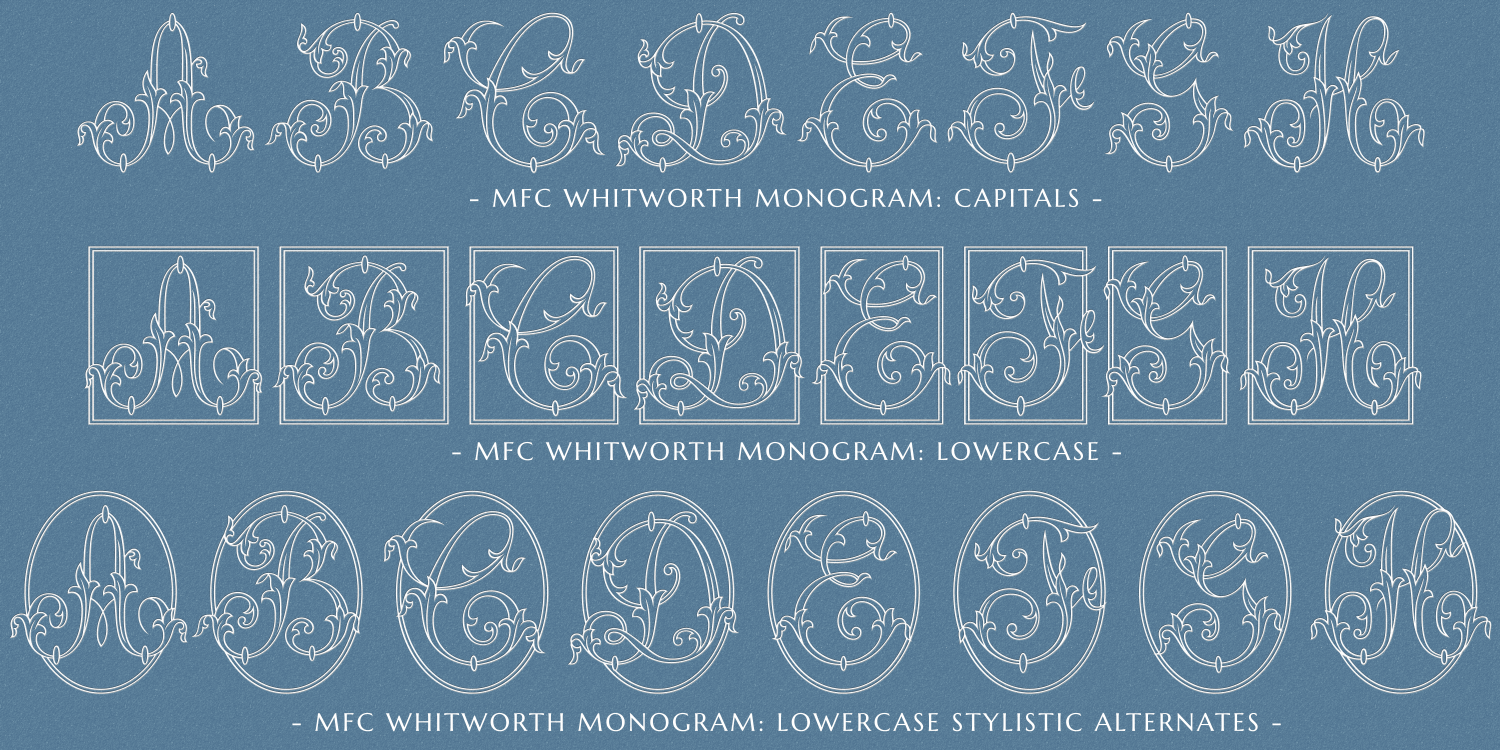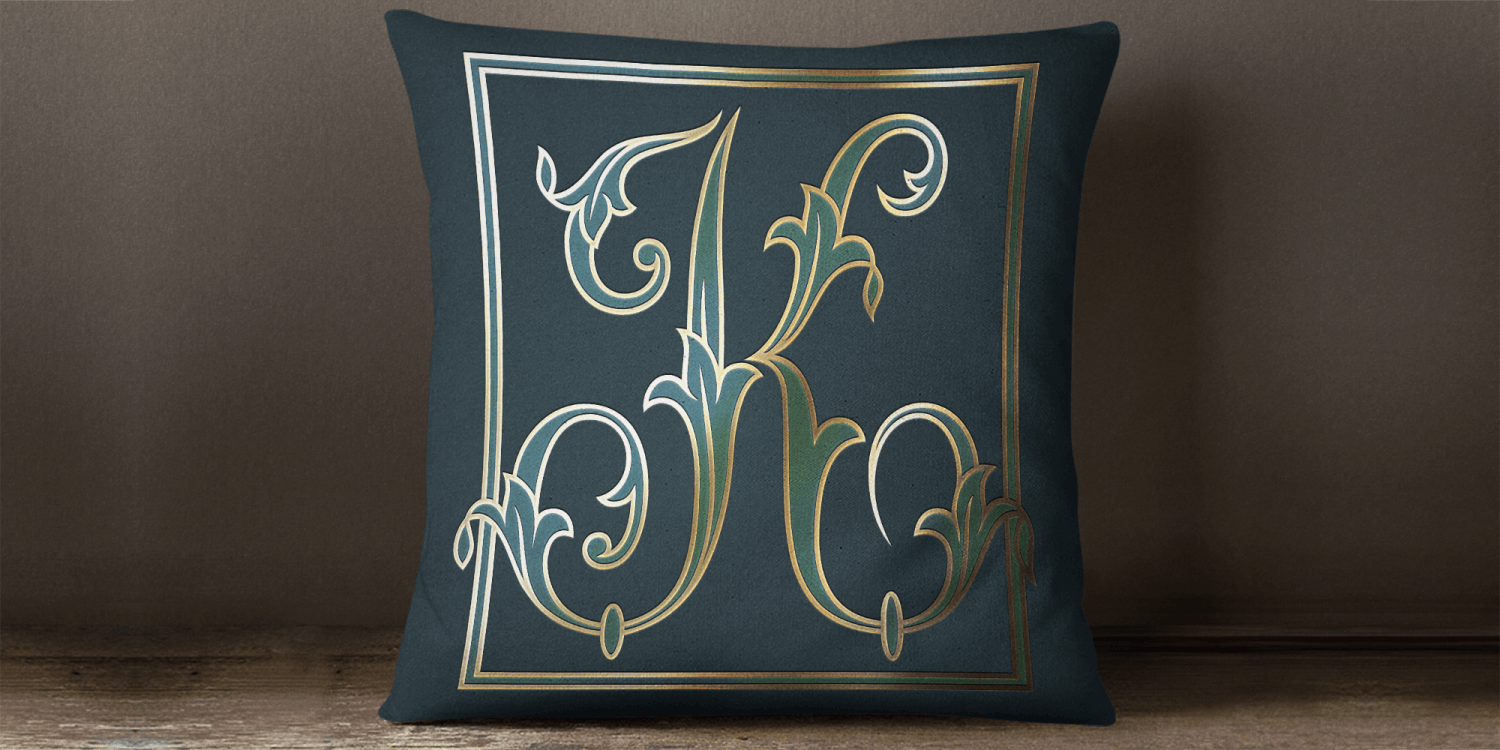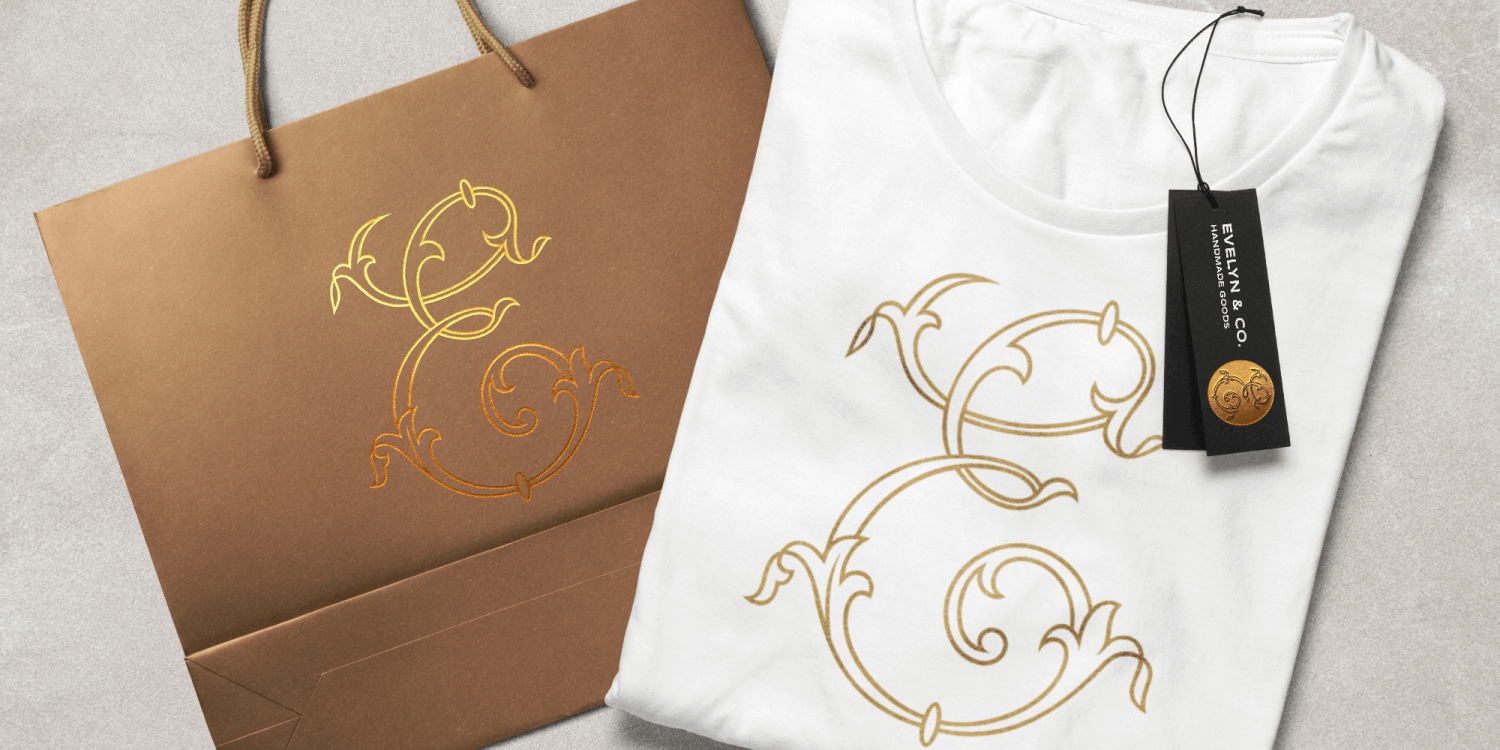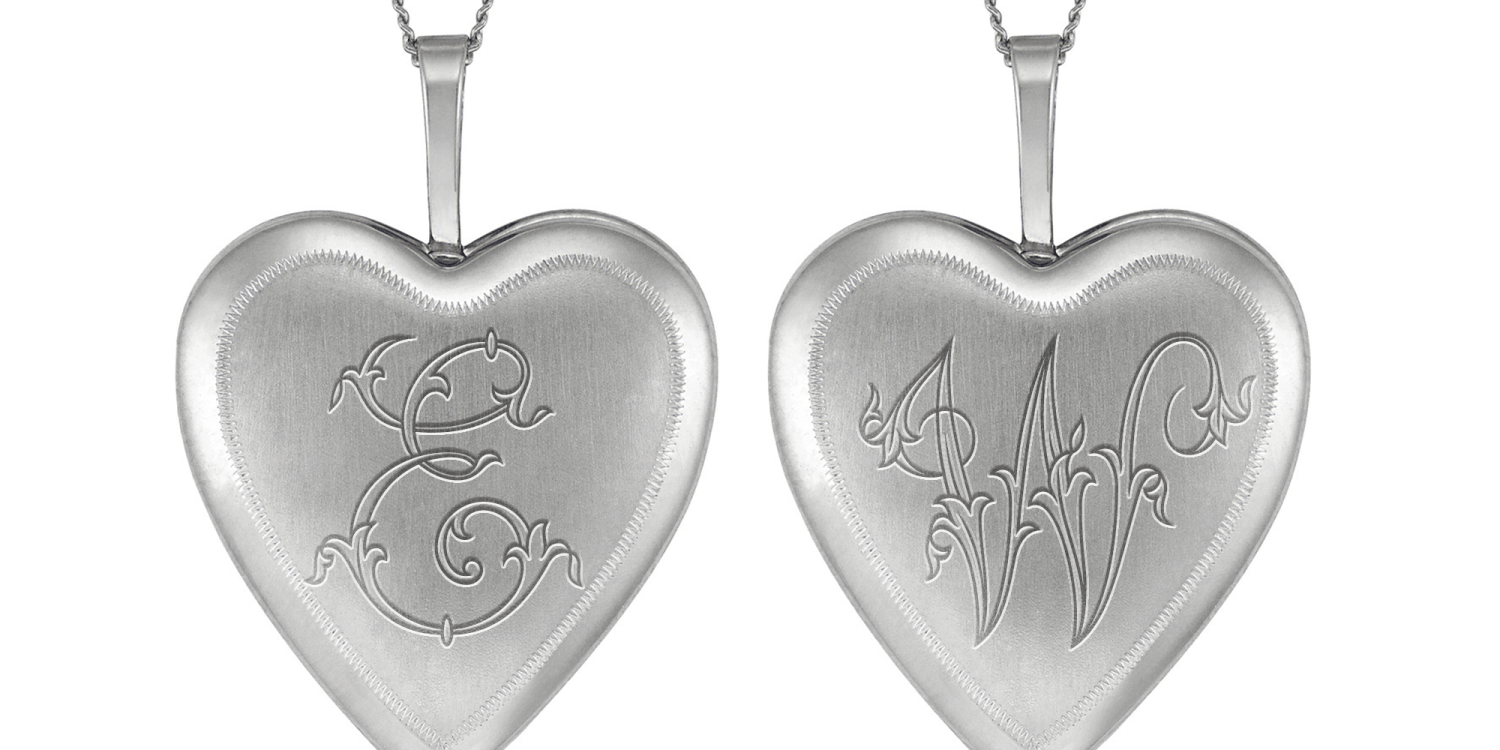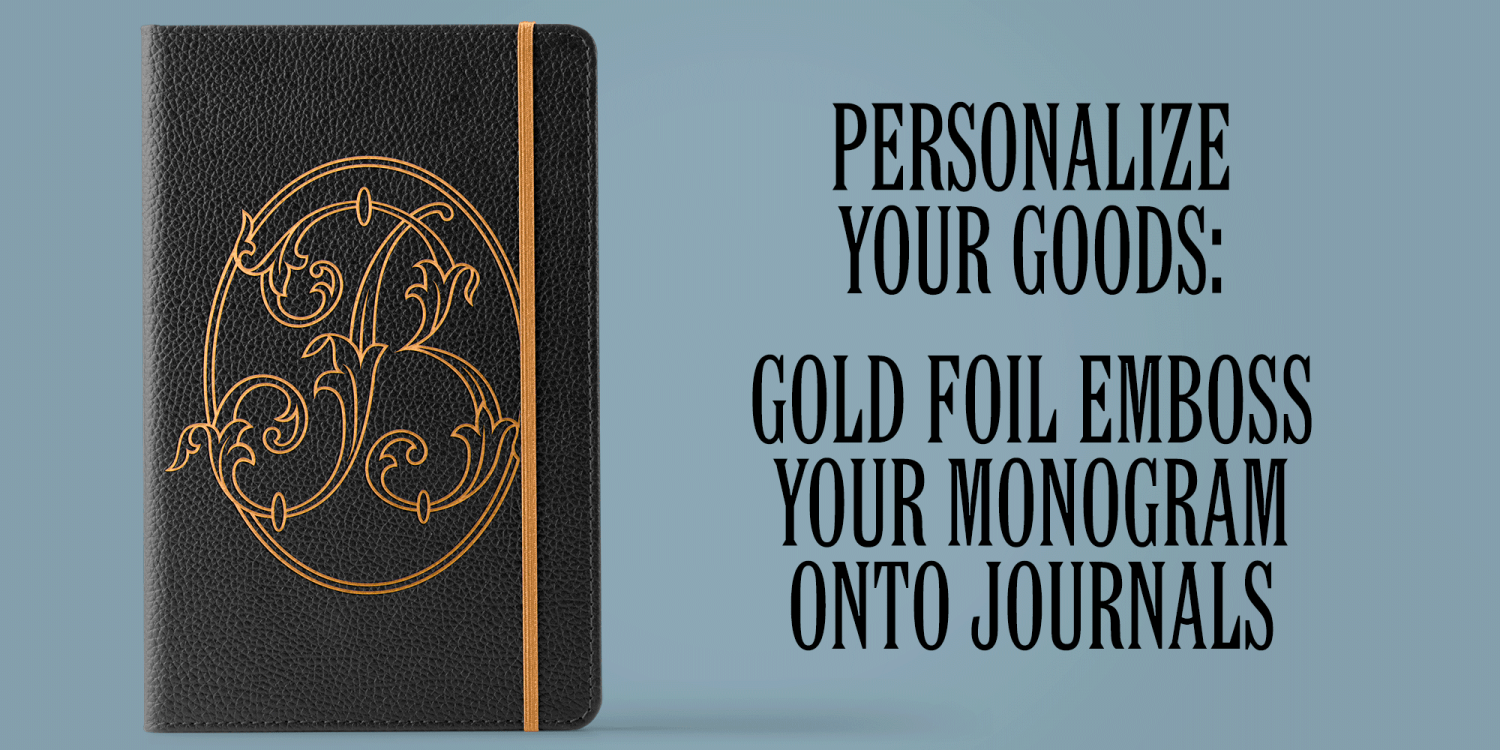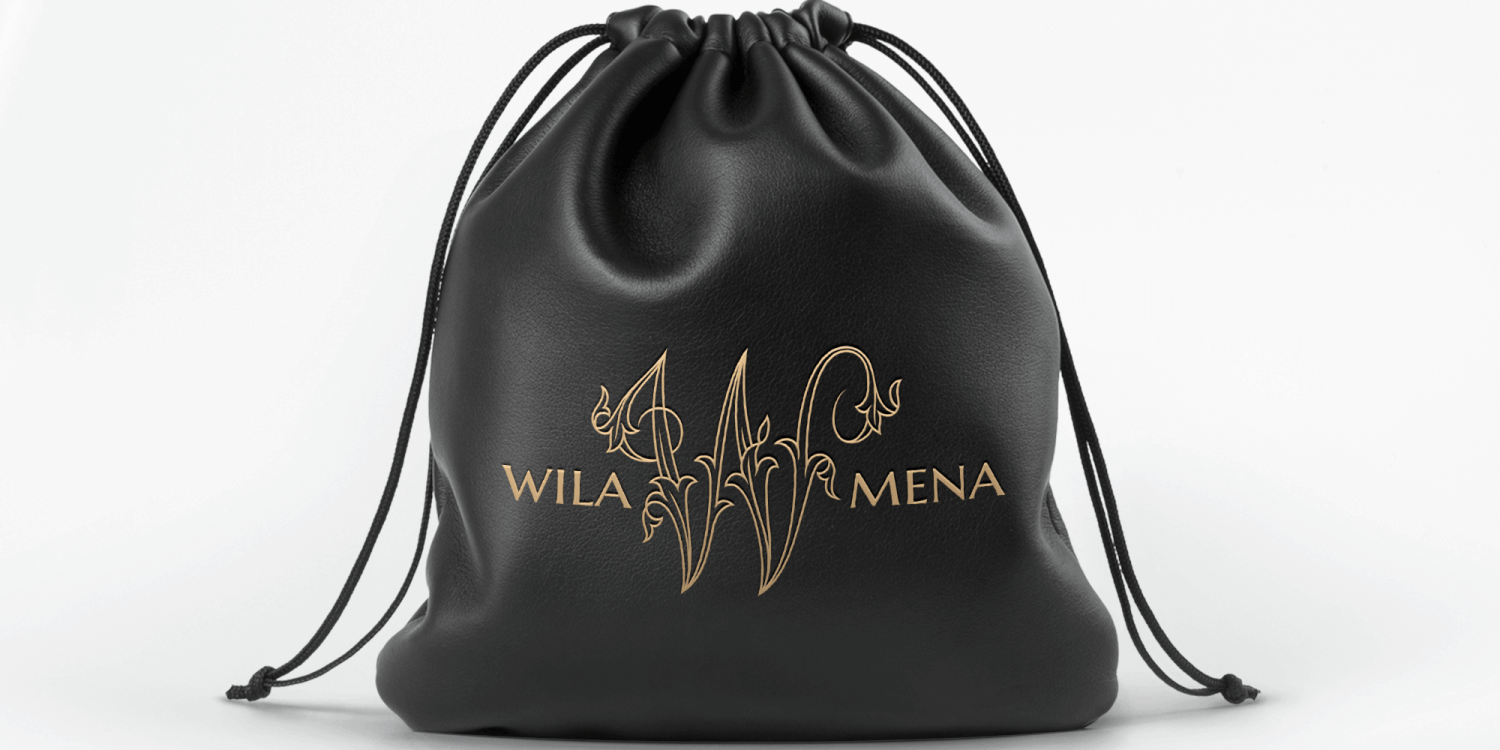
About MFC Whitworth Monogram
The inspiration source for MFC Whitworth Monogram is an alphabet set from a vintage embroidery alphabets book, Alphabets Broderies No. 238 by N. Alexandre & Cie. What began as 26 referenced capital letters has been expanded to three sets of alphabets…